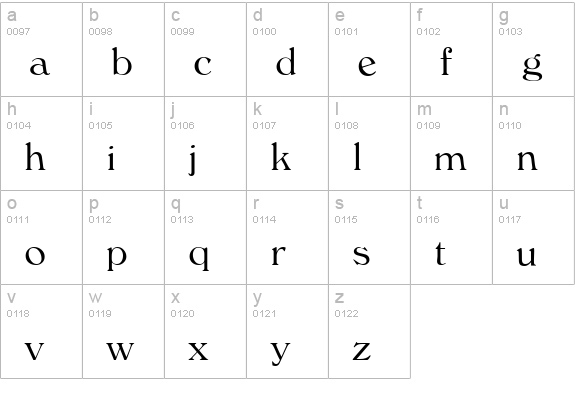
W730-Roman-Regular Font Details
W730-Roman-Regular is the standard, neutral variant in the W730 typeface family \xE2\x80\x94 well suited to general body text, paragraphs, and standard typographic work.
The W730-Roman-Regular font is a timeless and elegant typeface that exudes sophistication and charm. With its classic Roman styling and clean lines, this font is perfect for a wide range of design projects, from elegant invitations to professional documents. The W730-Roman-Regular font is versatile and easy to read, making it a great choice for both print and digital applications. Best of all, this font is available for free download at FontsMarket.com. Whether you're a seasoned designer looking for a new go-to font or a beginner looking to add a touch of class to your projects, the W730-Roman-Regular font is sure to impress. Download it today and elevate your designs with this beautiful and timeless typeface.